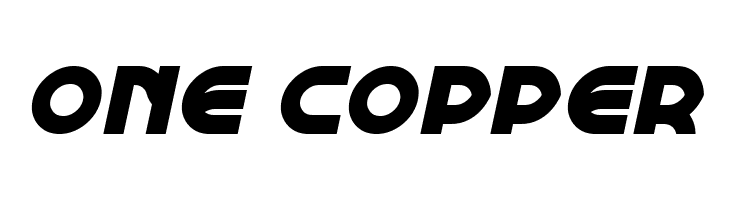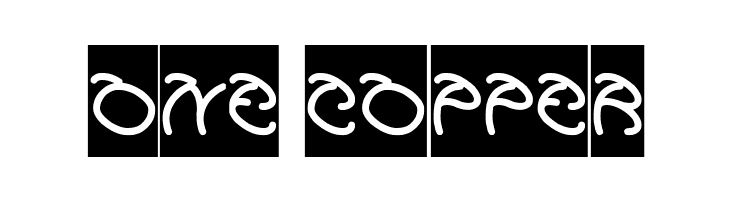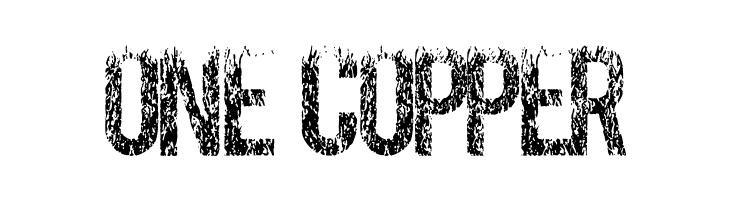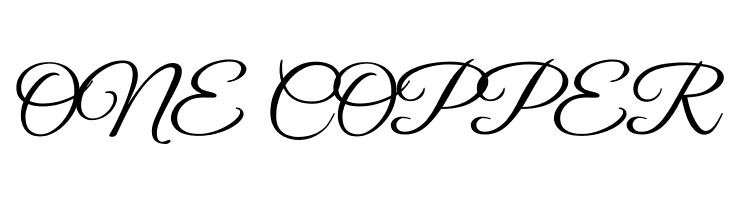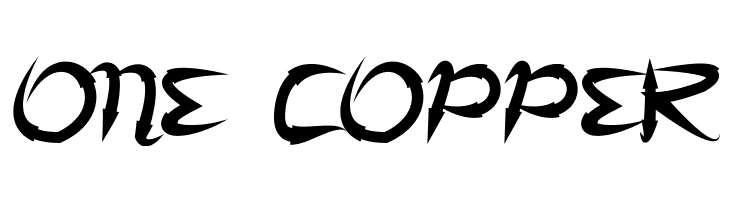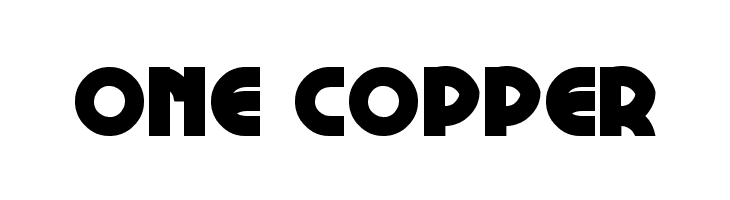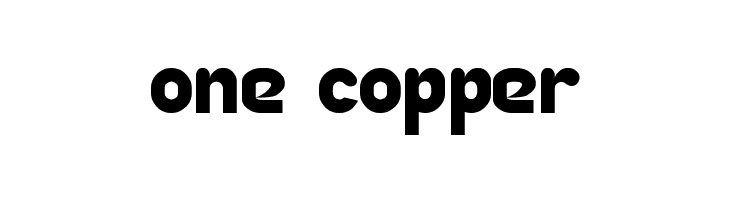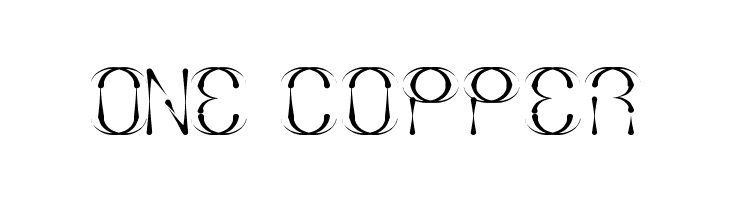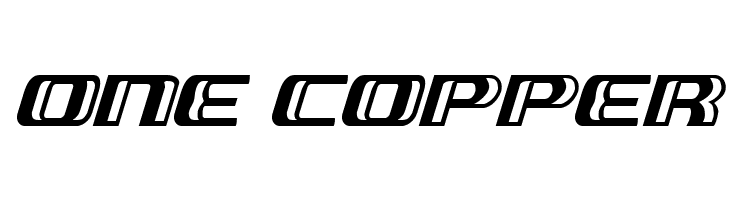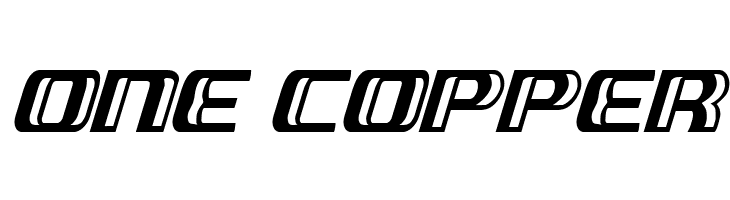
A bold, italicized font with a modern, dynamic style and geometric shapes.
A flowing, artistic font with curvilinear, hand-drawn style.
A whimsical and artistic font with bold, flowing lines and abstract shapes.
A bold, playful font with rounded, whimsical characters.
A textured, nature-inspired font with a rugged, organic appearance.
A bold, geometric sans-serif font with a modern and impactful style.
A bold, geometric font with a modern, structured design.
A modern, futuristic font with smooth, rounded lines and distinctive curves.
A modern, geometric font with a digital and tech-inspired design.
A bold, italicized font with a chrome-like, three-dimensional appearance.
A bold, industrial font with a chrome-like, three-dimensional appearance.
A bold, geometric, and condensed font with a modern industrial feel.
A bold, condensed, and italicized font with a futuristic and mechanical style.
A bold, industrial font with a mechanical and futuristic aesthetic.
A bold, expanded italic font with a modern, angular design.
A bold, industrial font with a left-leaning italic slant and hollow interior.
A bold, industrial font with geometric, block-like characters.
A bold, geometric font with a modern, adventurous style.
A bold, playful font with rounded, whimsical characters.
A bold, rounded font with a playful and modern style.
An elegant and flowing script font with ornate, cursive characters.
A bold, dynamic font with sharp, angular strokes and an energetic appearance.
A jagged, bushy font with a wild, untamed appearance.
A bold, shadowed font with a textured, three-dimensional effect.